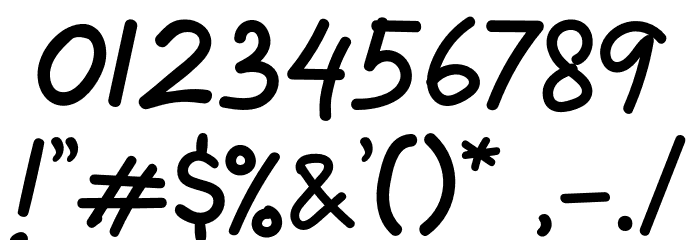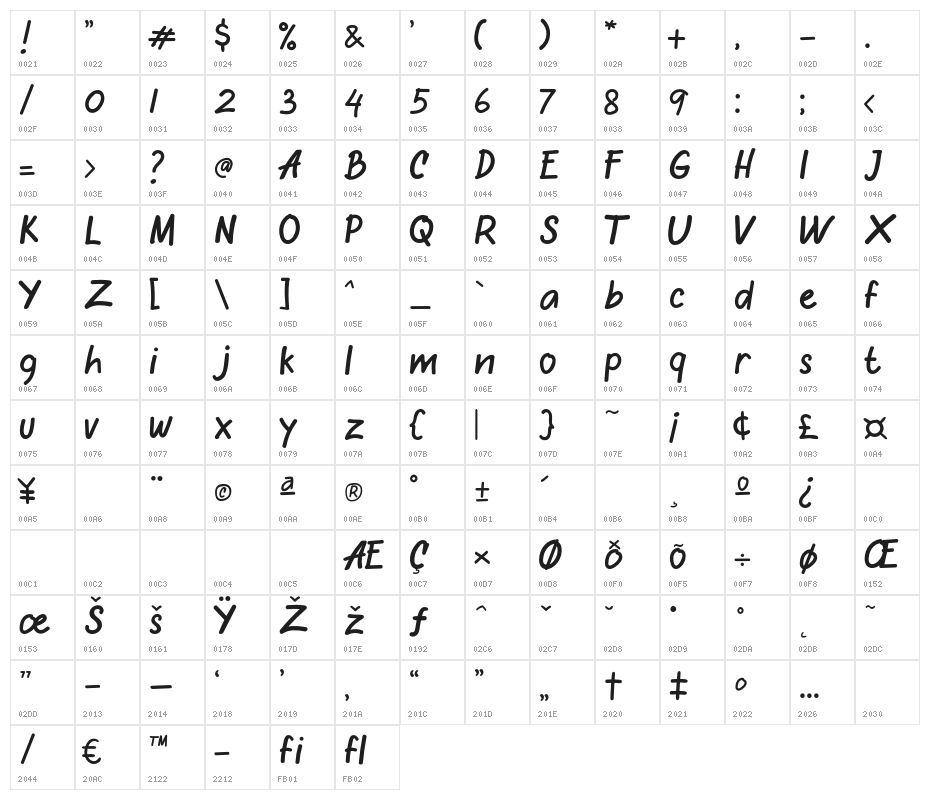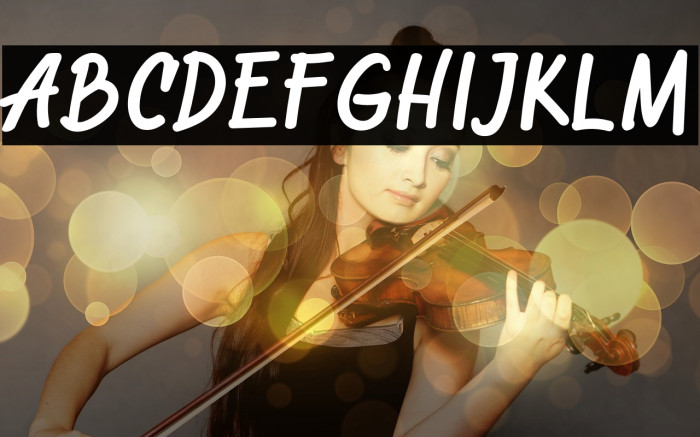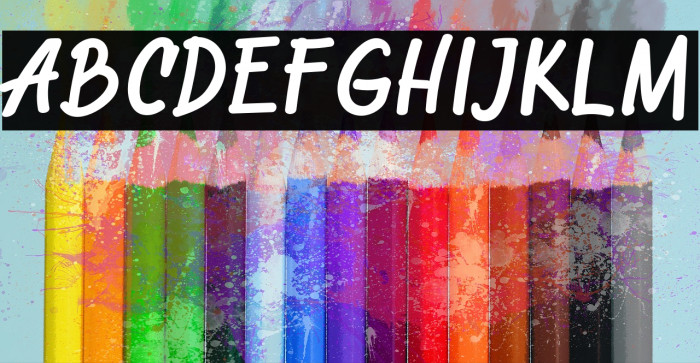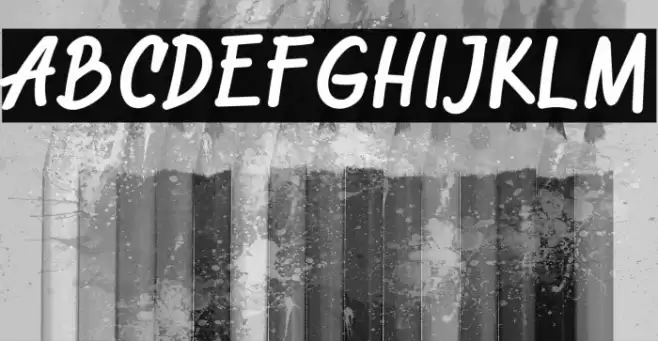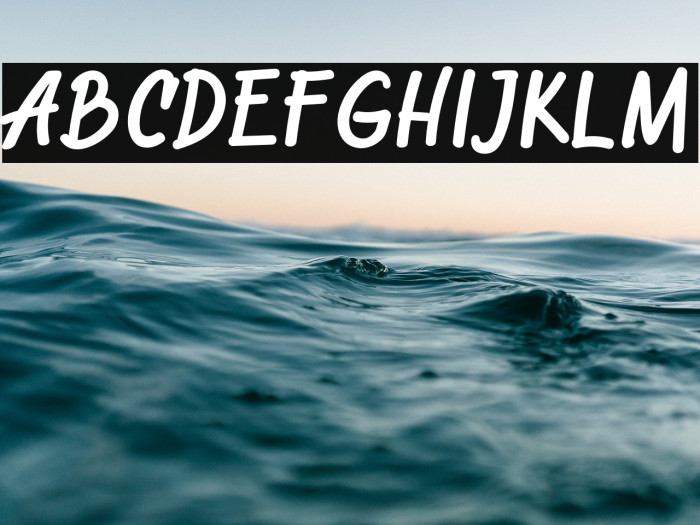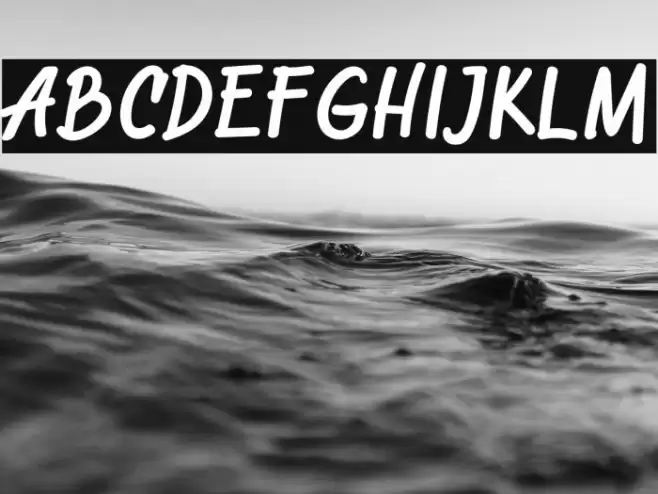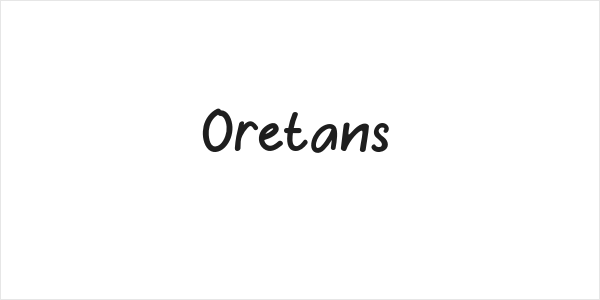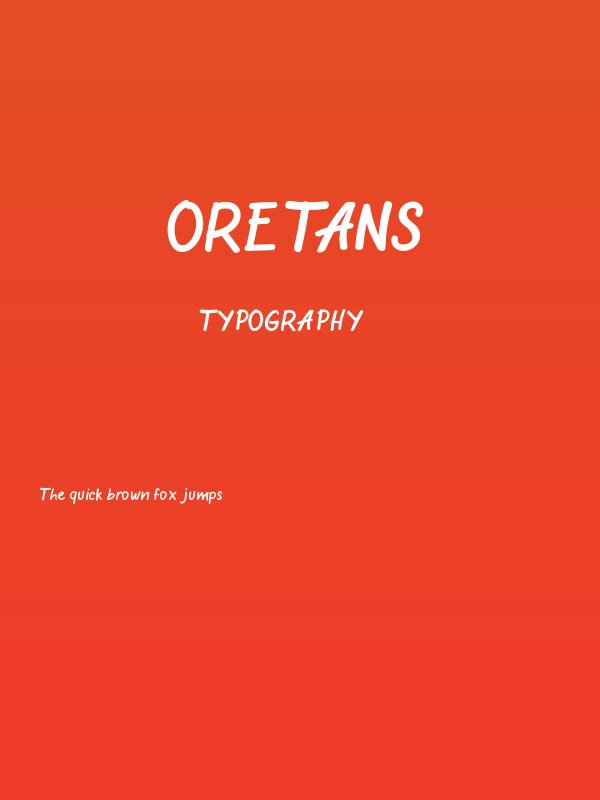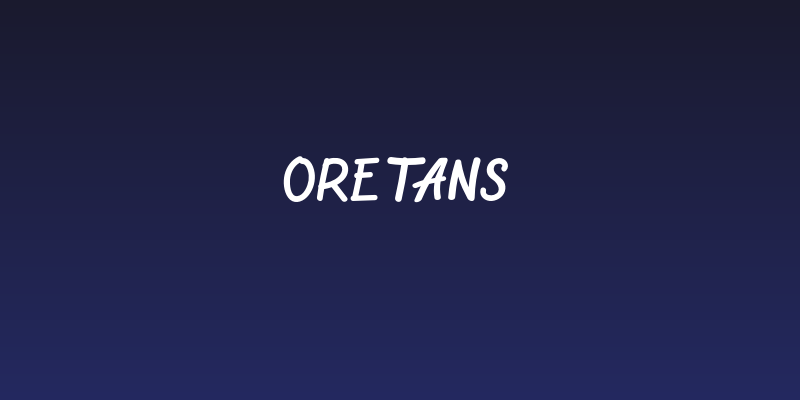
Oretans Font
Oretans Description
This font features a playful and casual handwritten style, characterized by its smooth, flowing curves and slightly irregular strokes. The uppercase letters are bold and dynamic, with a slight slant that adds to the informal feel. Lowercase letters maintain a consistent style, complementing the uppercase with their rounded forms and open counters. The numerals are clear and legible, matching the overall aesthetic with their rounded edges. Special characters are well-integrated, maintaining the font's cohesive look. This font's friendly and approachable appearance makes it suitable for a variety of creative projects.
| Proposed Projects | Ideal for greeting cards, invitations, children's books, and playful branding. |